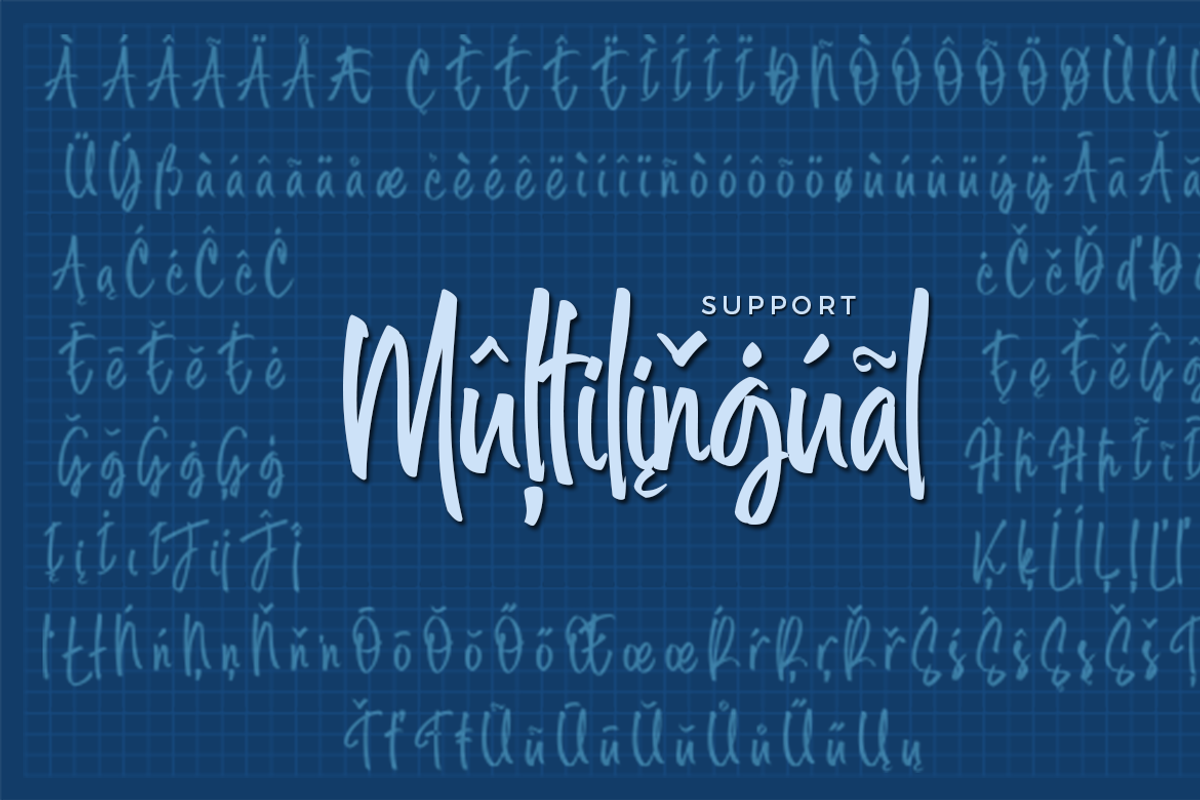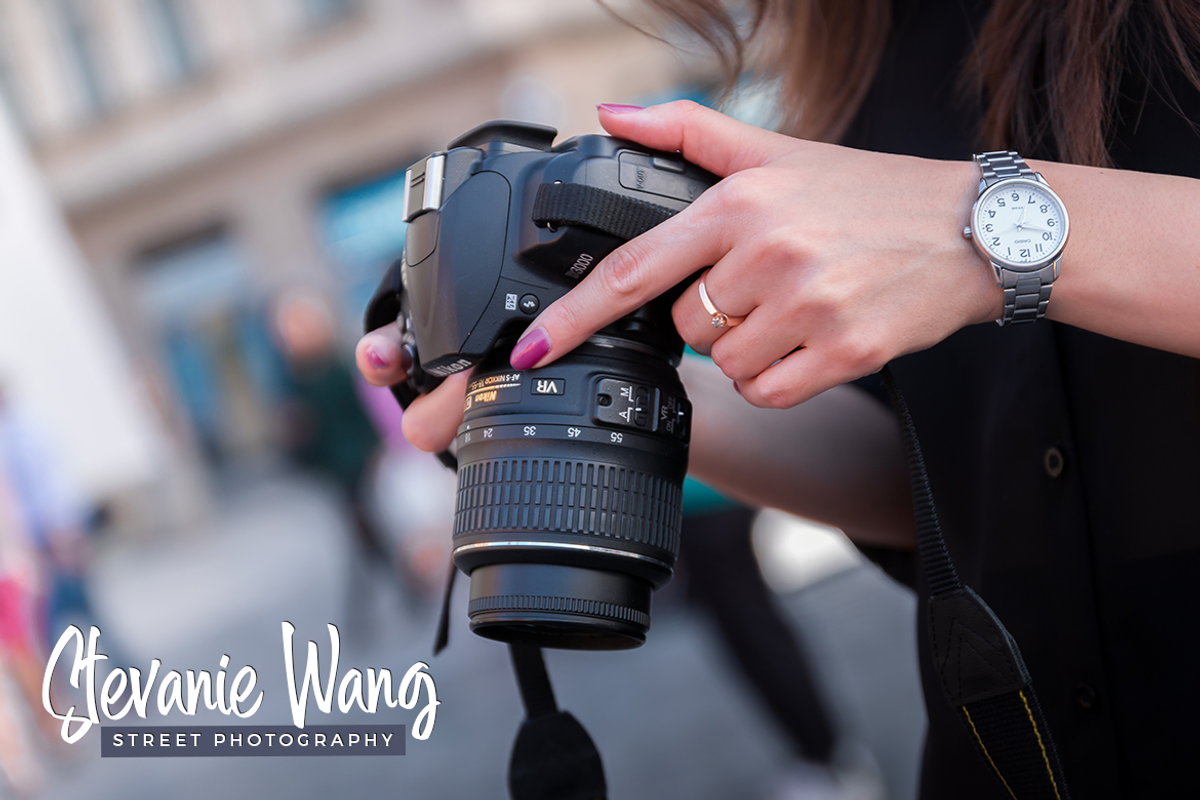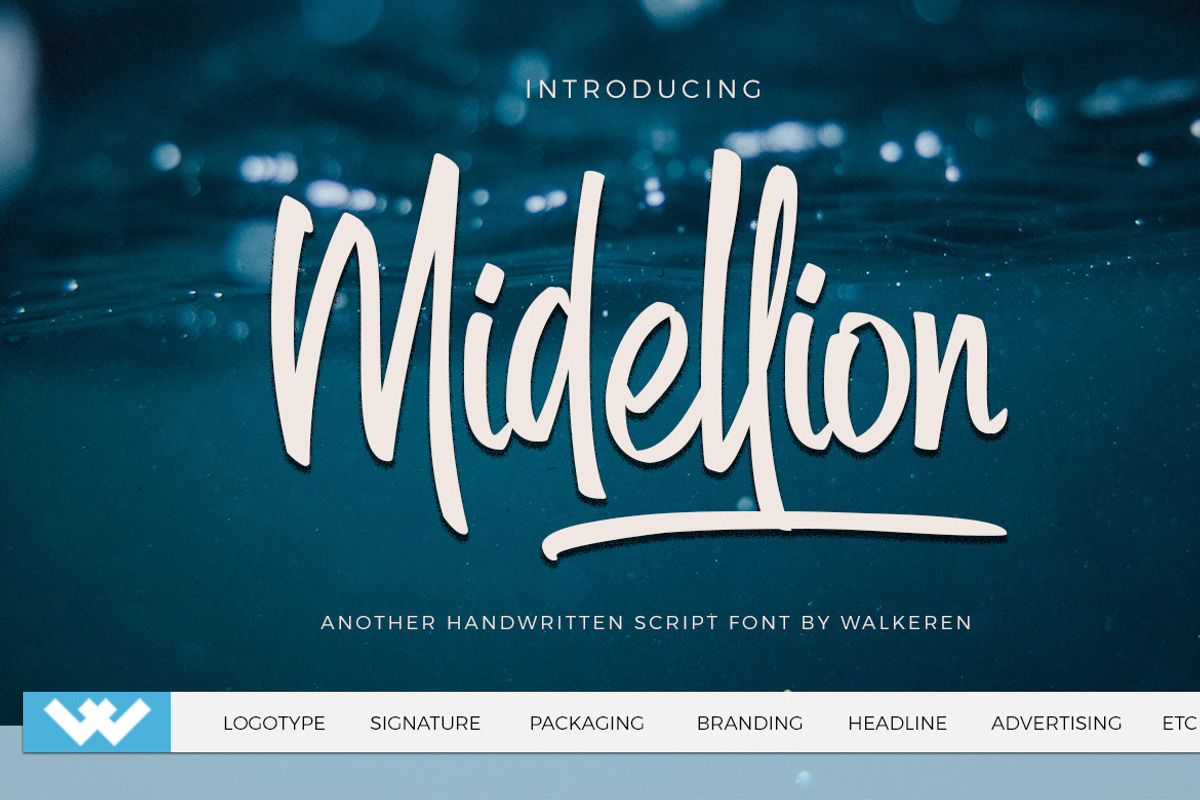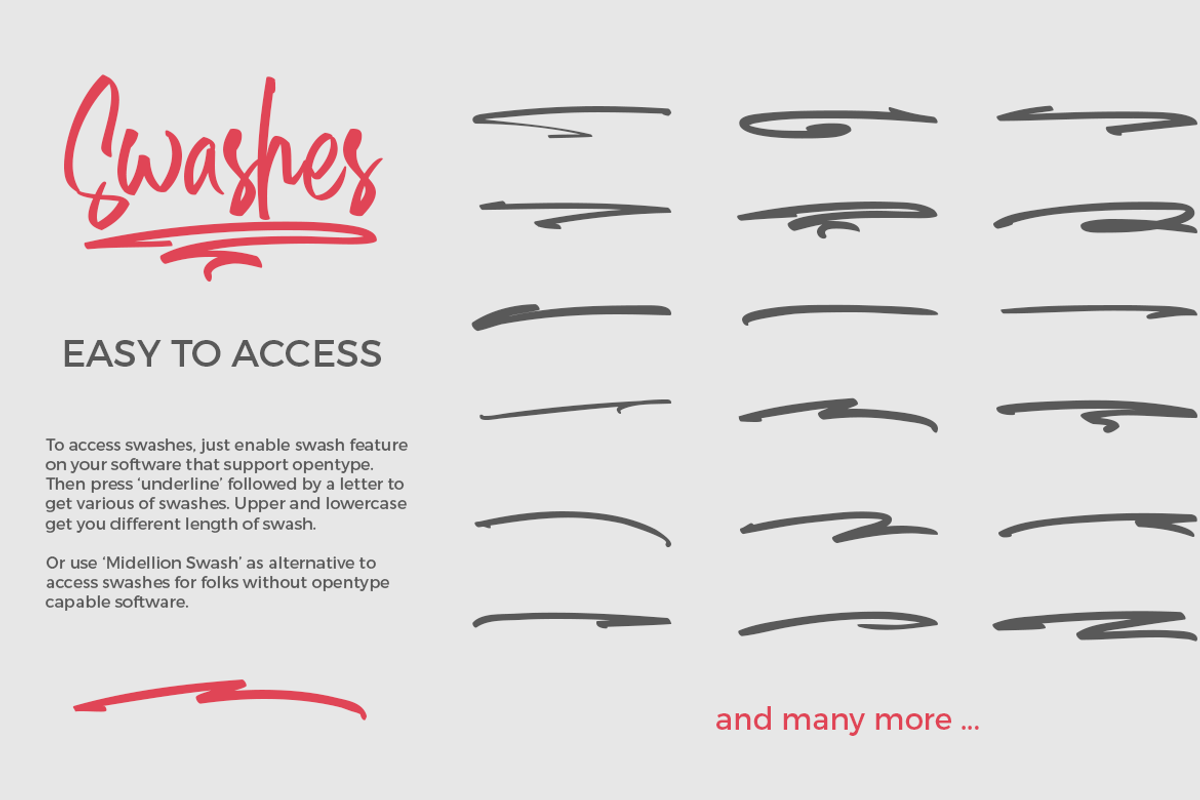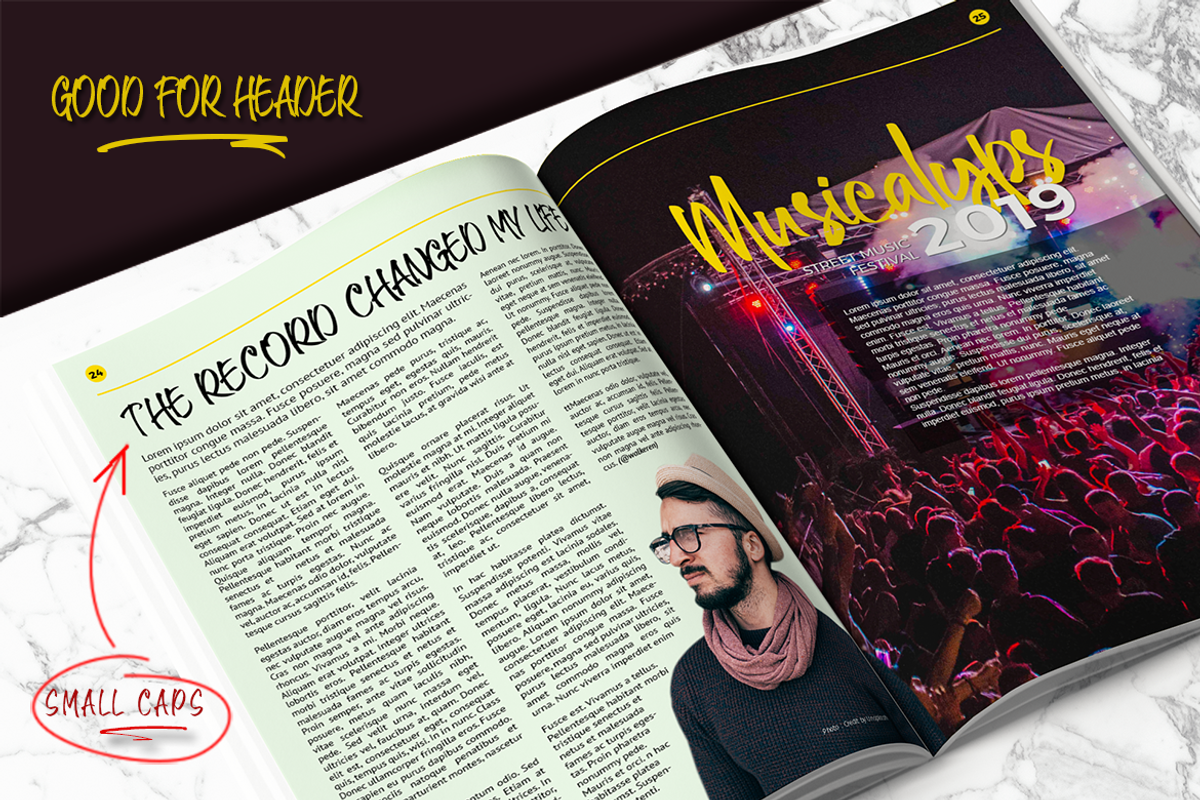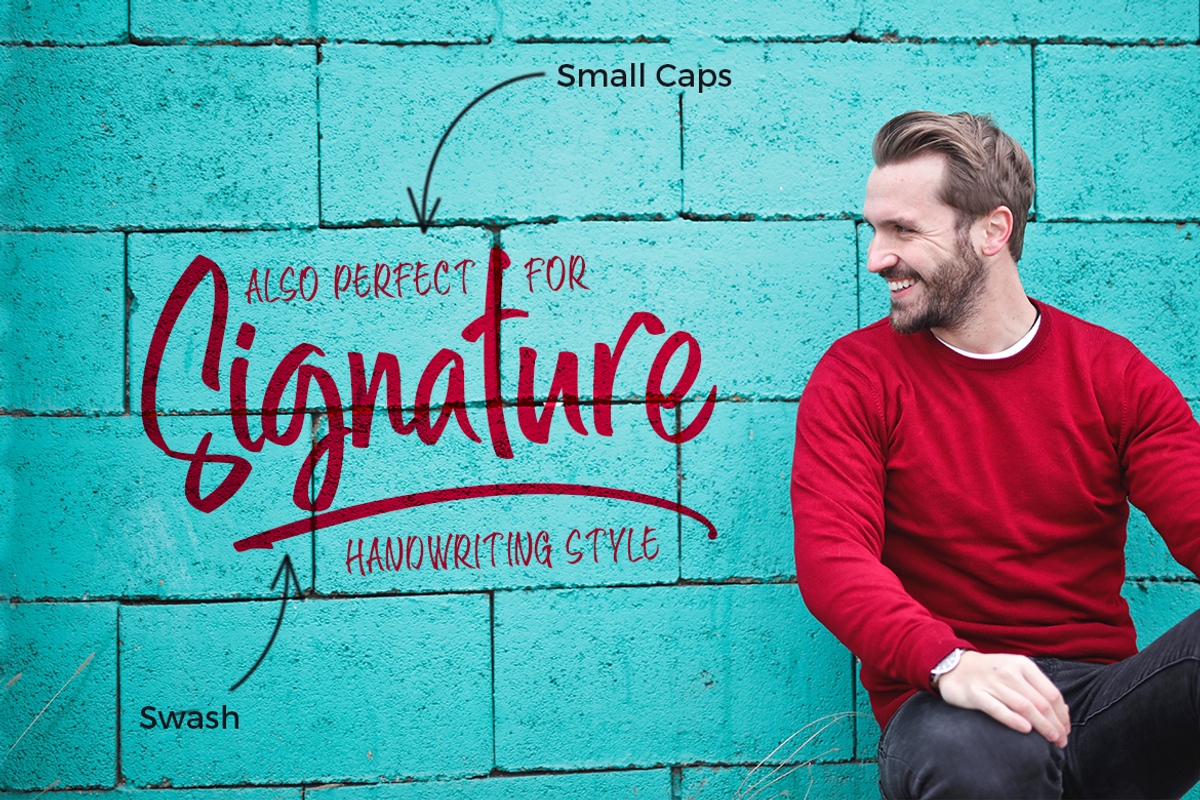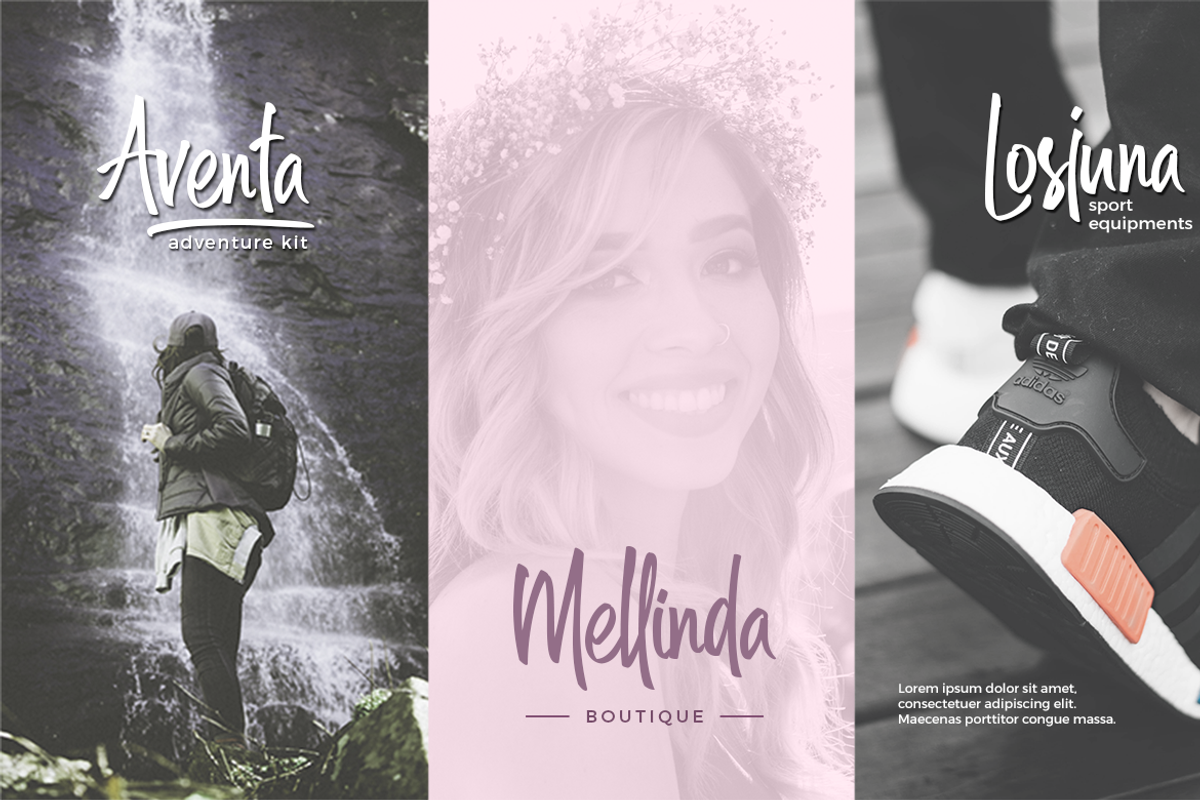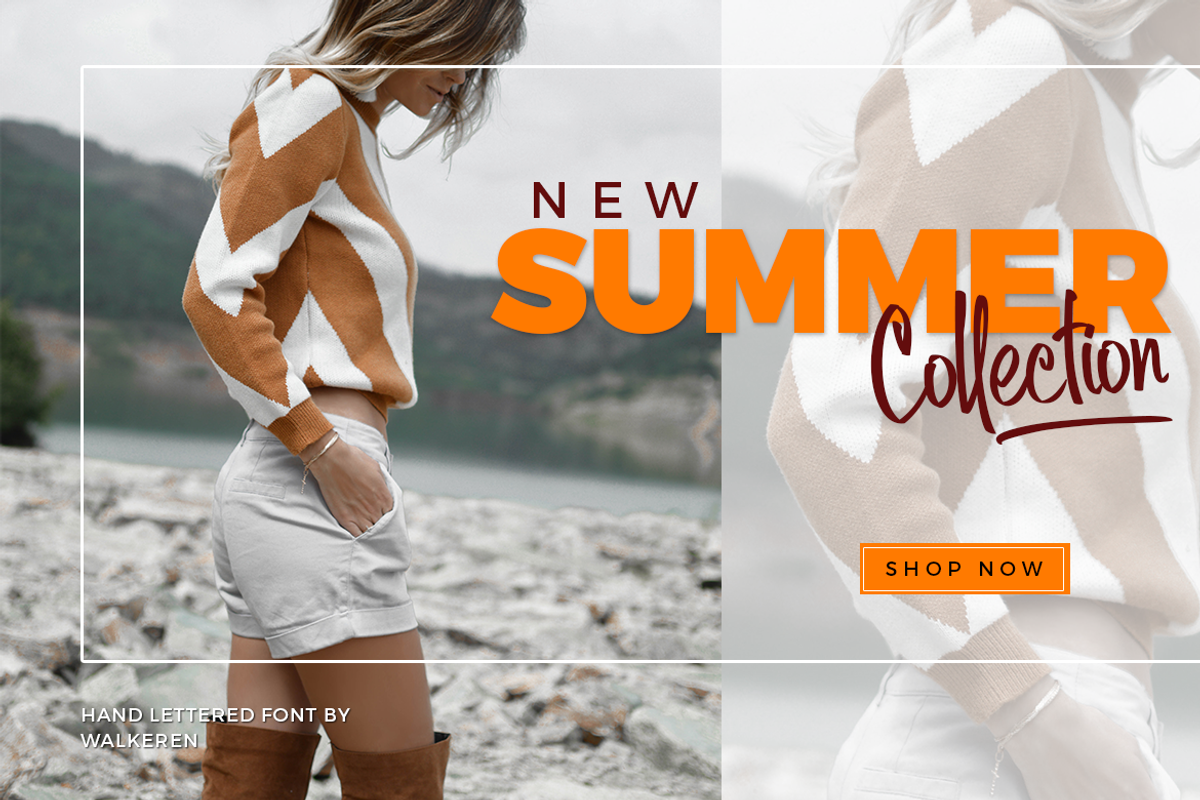
Midellion Script Font
Hi dude, let’s us introduce for you: Midellion. A narrow-handwritten script with modern style and built in Opentype features. This font comes with multilanguage support and various swashes are also included in the Private Use Area, make you can access them easily even your software not support OpenType.
Midellion will perfect for many different project ex: header for blog or magazine, poster, wedding, branding, packaging, logo, fashion, apparel, letter, invitation, stationery, quotes, photography, watermark, etc. And also perfect for signature handwriting style
The font has a smooth texture, so would be perfect for all types of printing techniques you can do embroidery, laser cut, gold foil etc.
Midellion includes 3 fonts
Midellion – A handwritten script font containing upper & lowercase characters, numerals, punctuation, multilanguage and opentype feature (ligature, swash, smallcap)
Midellion Smallcaps – Containing smallcap glyphs (The alternate to access smallcaps feature for folks without opentype capable software)
Midellion Swash – Includes 52 hand-made swashes